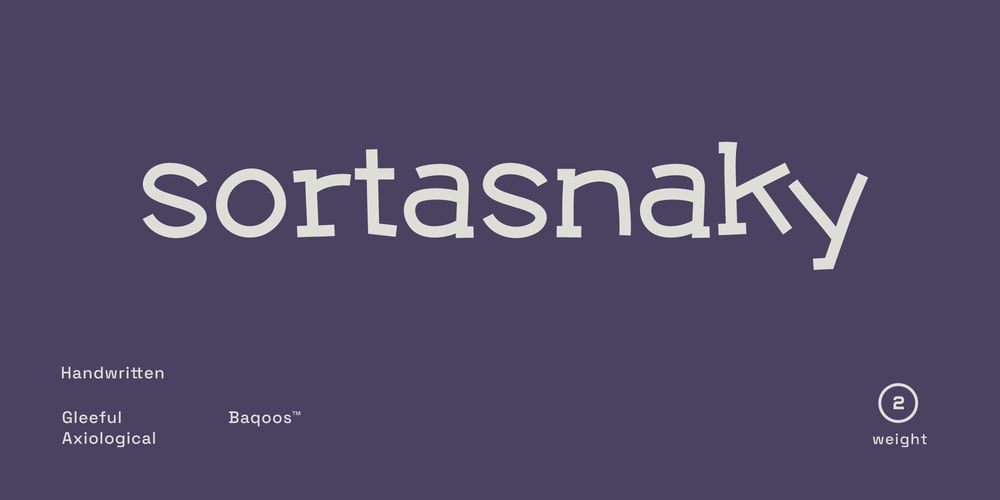
Sortasnaky
Sortasnaky font
Sortasnaky Font Family was designed by Andrew Seah and published by Baqoos. Sortasnaky contains 2 styles and family package options. Sortasnaky is a gleeful axiological handwritten typeface apt for headline, editorial, branding, packaging, printed materials and typographic applications. 200+ glyphs including punctuation and numerical.